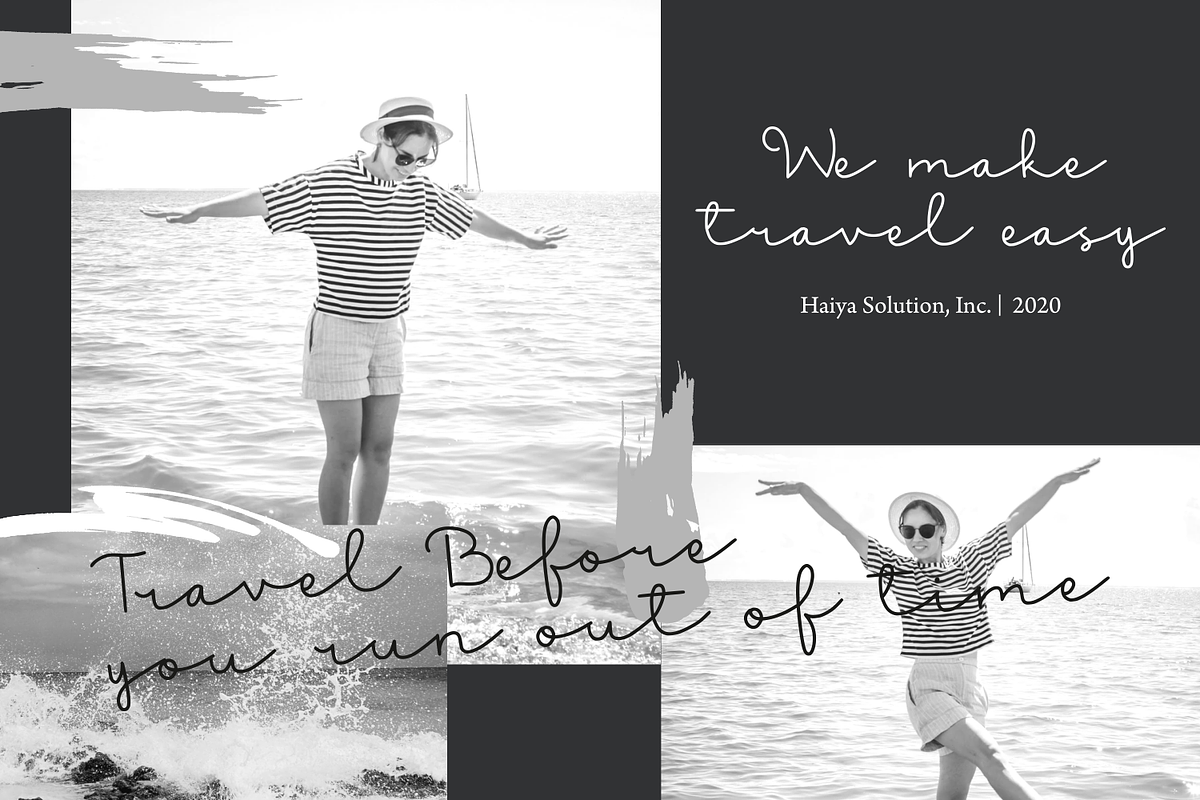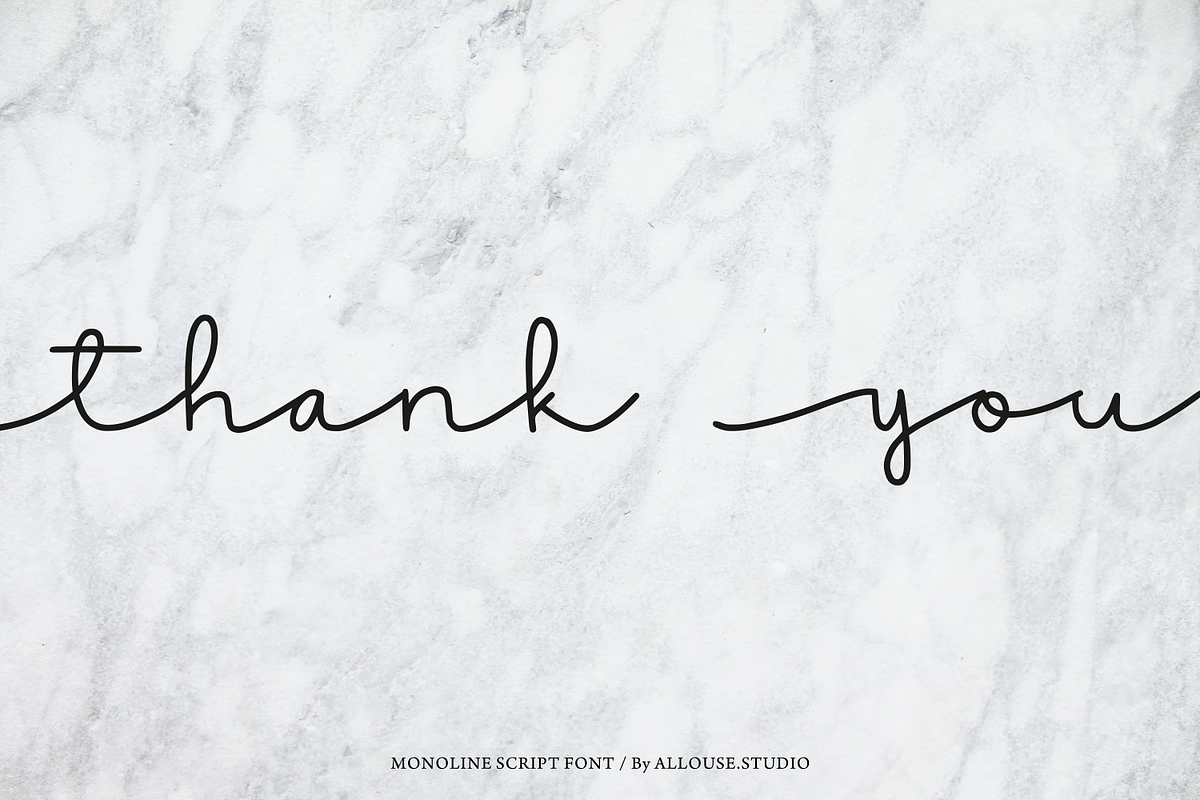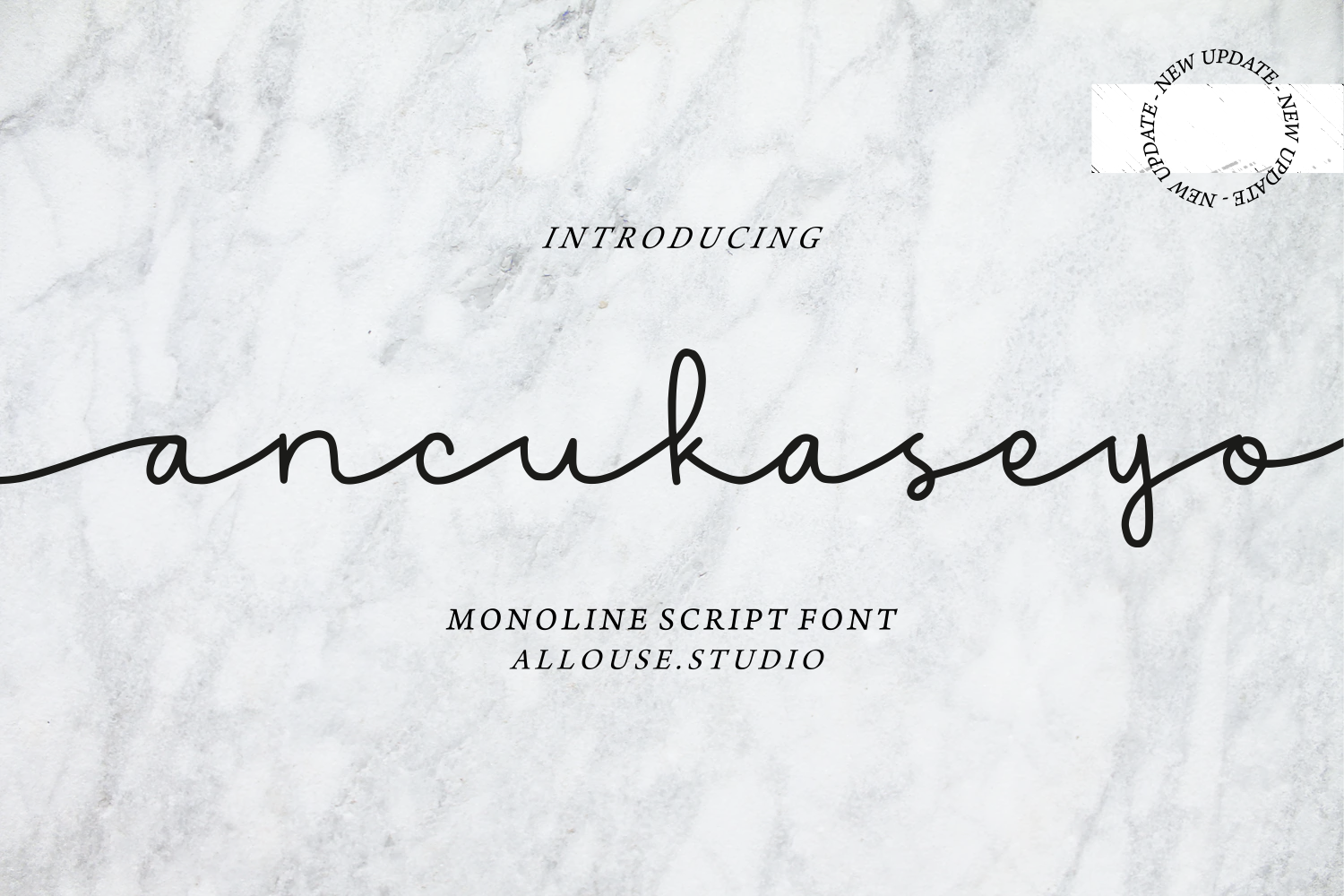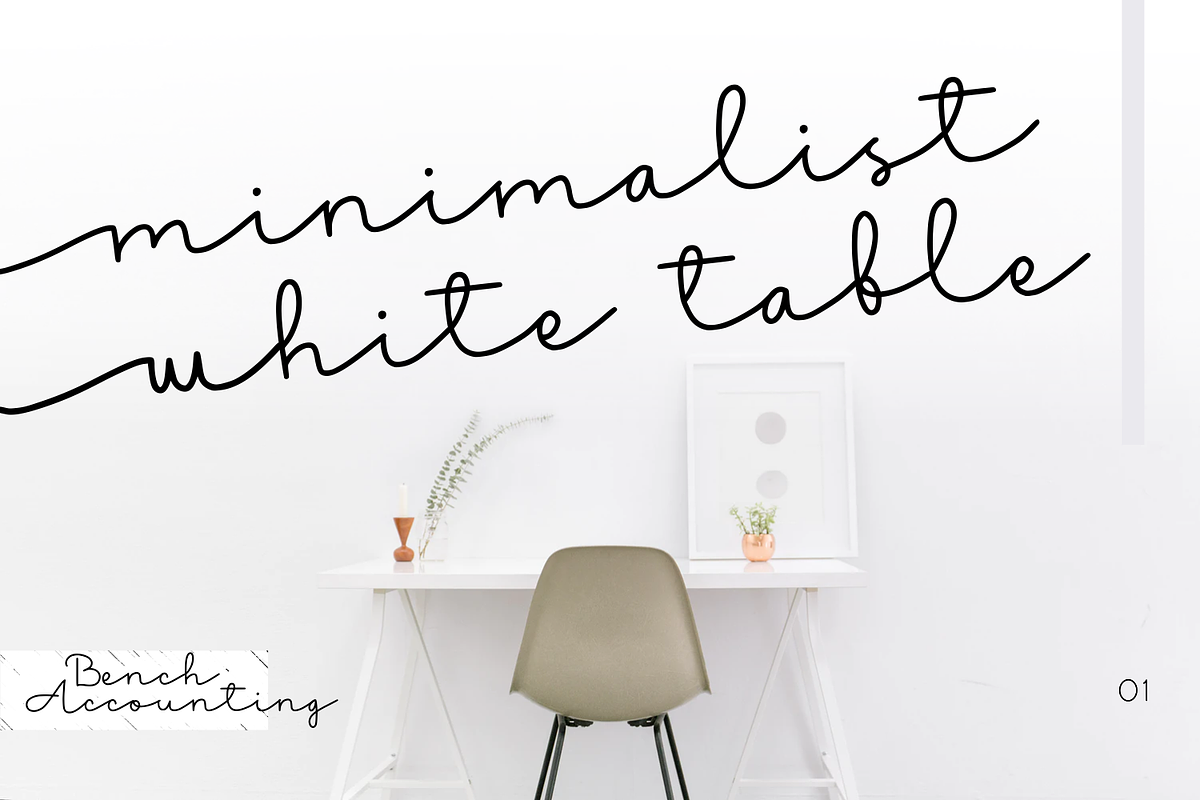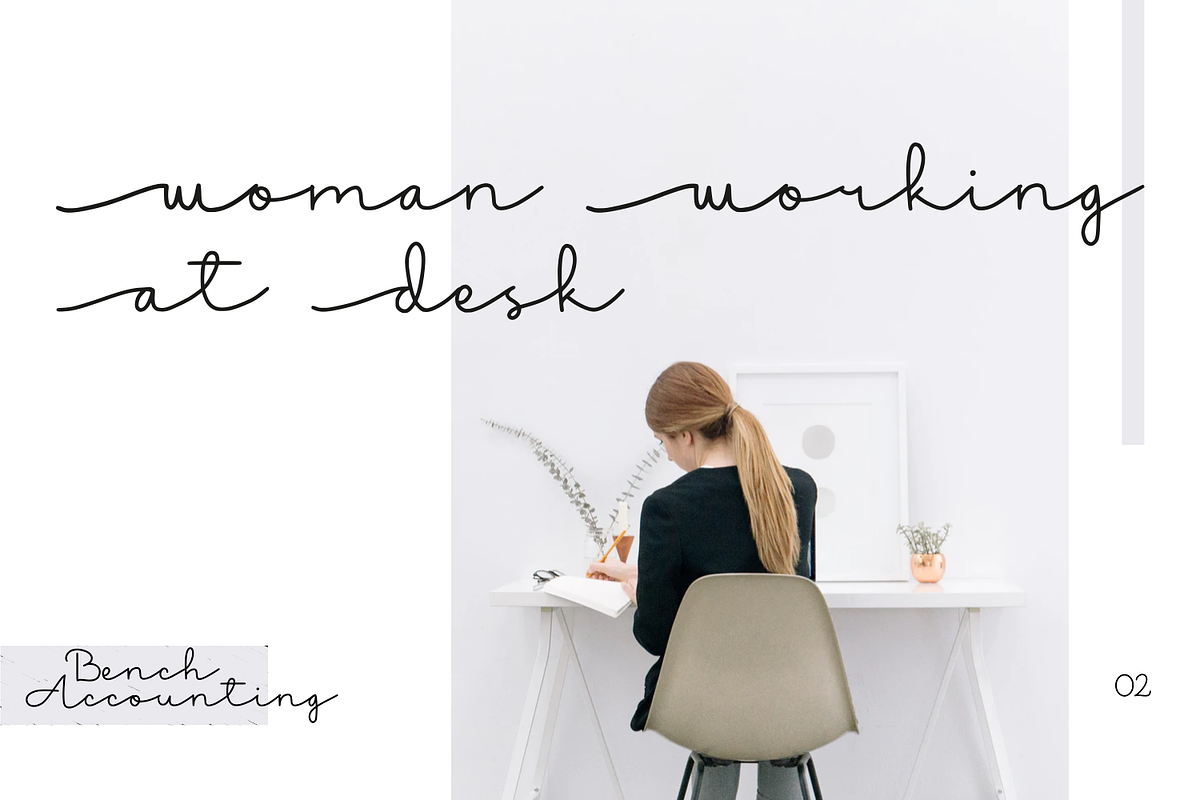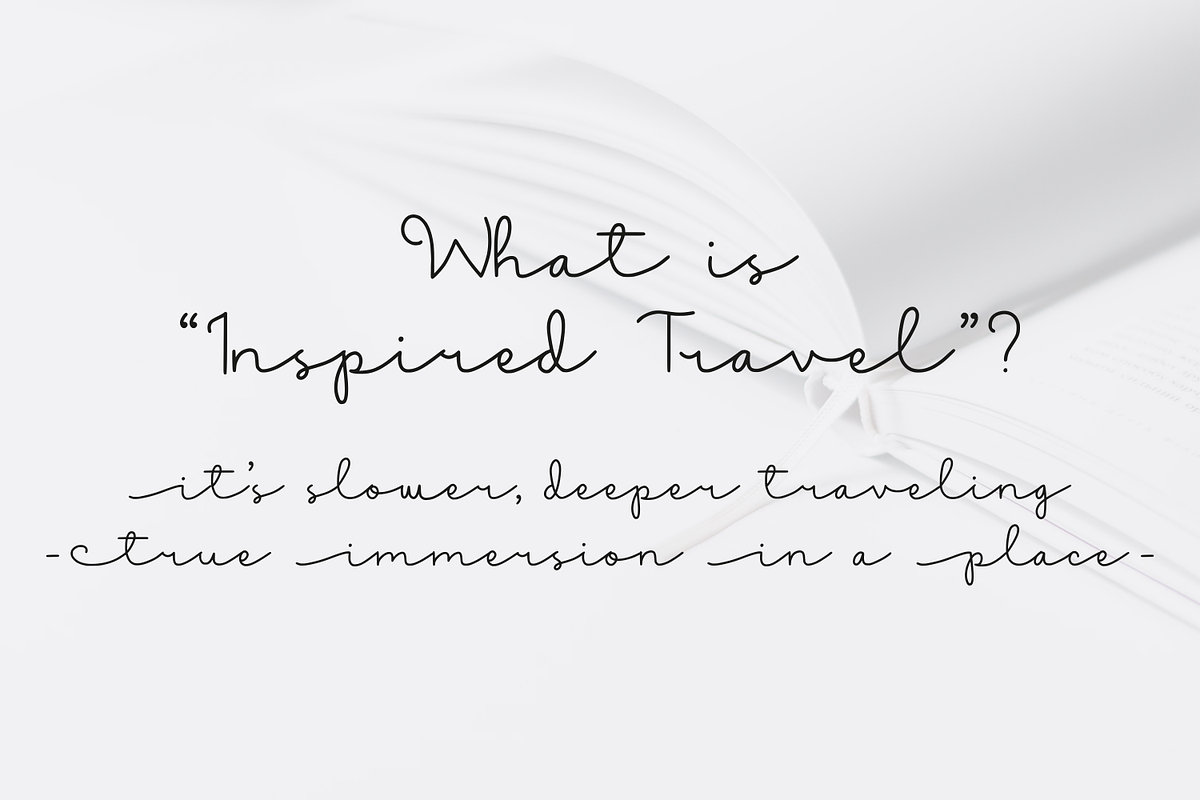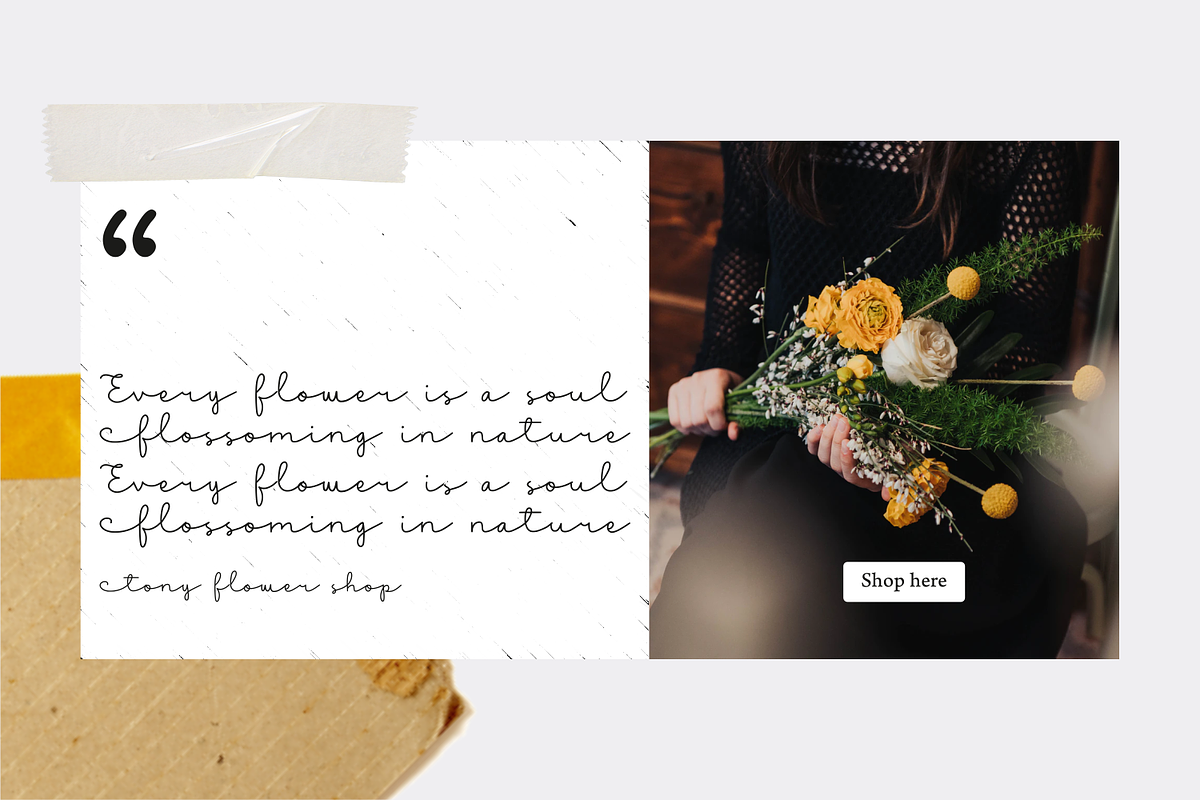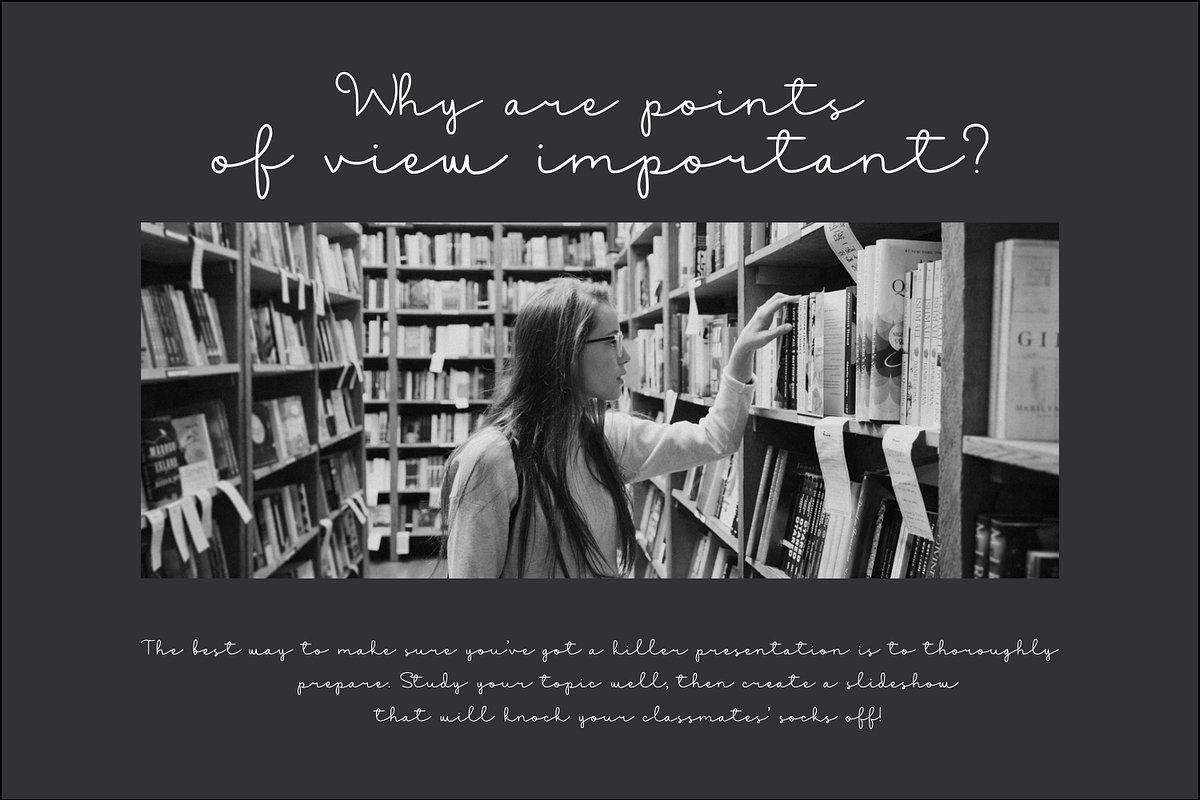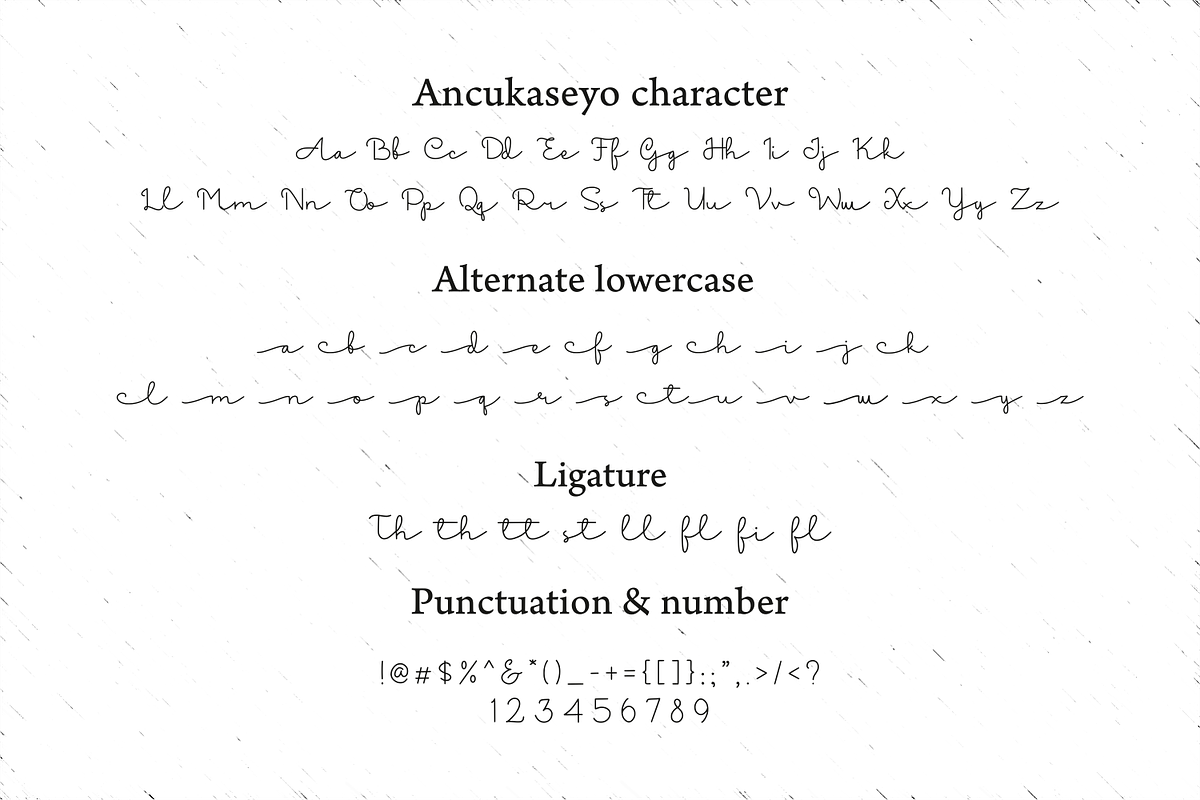
Ancukaseyo Font
Introducing by Allouse.Studio
Proudly Present, Ancukaseyo.
Ancukaseyo is a Monoline Script Font
Ancukaseyo is perfect for product packaging, branding project, megazine, social media, wedding, or just used to express words above the background.